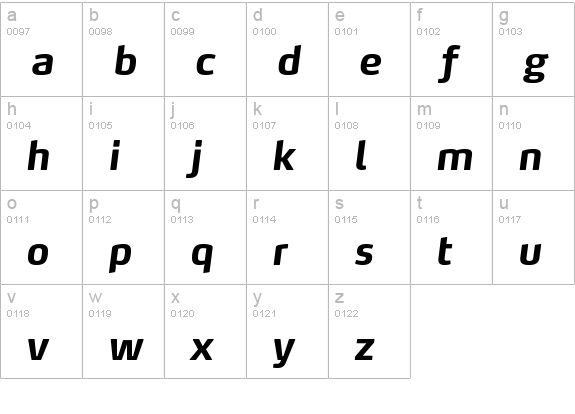
MaxLF-BoldItalic Font Details
Introducing MaxLF-BoldItalic font - a stylish and modern typeface that exudes a bold and edgy vibe. This unique font combines the boldness of MaxLF with a touch of elegance in its italicized form, making it perfect for projects that require a strong yet sophisticated look. MaxLF-BoldItalic is a versatile font that can be used for a variety of design purposes, from branding and advertising to web design and print materials. Its strong presence on the page commands attention and leaves a lasting impression on the viewer. The best part? MaxLF-BoldItalic is available for free download at FontsMarket.com, allowing designers and creatives to access this high-quality font without breaking the bank. Don't miss out on the opportunity to elevate your designs with the bold and stylish MaxLF-BoldItalic font - download it today and see the difference it makes in your projects!